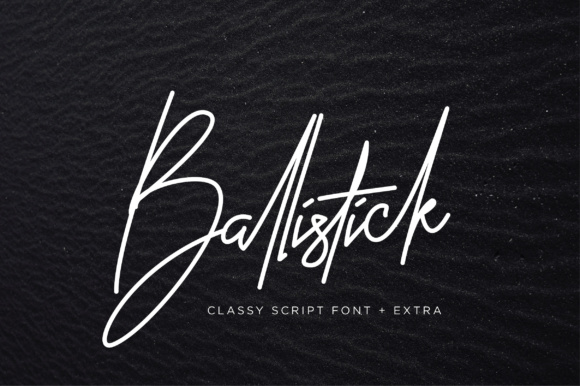
Introducing the stunning Ballistick Font, an exquisite signature script designed to capture your audience's imagination. Step into a world of enchanting typography and ignite your creative spirit with this masterpiece. The Ballistick Font is more than just a collection of letters; it's an artistic journey that invites you to craft captivating designs with flair and finesse.
Ballistick's enchanting curves and elegant lines exude sophistication, making it the perfect choice for creating logos, branding, invitations, and social media graphics that leave a lasting impression. With its timeless beauty, this font adds an undeniable touch of class and charm to any project. Whether you're a seasoned designer or just starting your creative adventure, the Ballistick Font empowers you to transform your ideas into breathtaking realities.
Immerse yourself in boundless creativity as you explore the endless possibilities of the Ballistick Font. Its versatility knows no bounds, allowing you to seamlessly blend this elegant script with a wide range of design aesthetics. From whimsical wedding invitations to bold and modern posters, the Ballistick Font effortlessly adapts to your unique vision. Unleash your inner artist and let your imagination run wild as you create designs that captivate and inspire.
Experience the Ballistick Font, a typographic gem that elevates your designs to new heights. Let its timeless beauty and captivating style ignite your creativity and leave an unforgettable mark on your audience. Embrace the art of typography and embrace the Ballistick Font as your trusted creative companion.